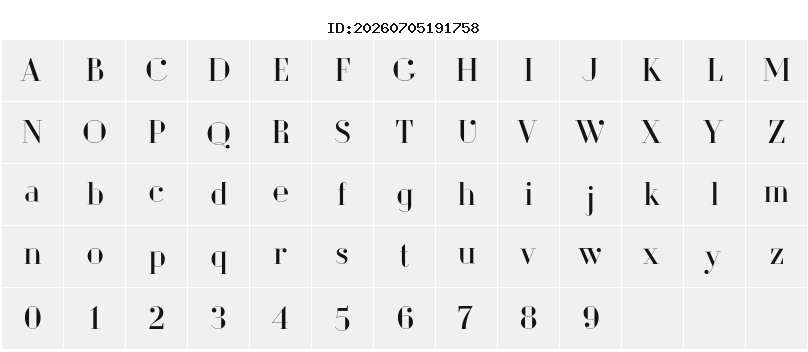
Dita Sweet Preview
• Font Name: Dita Sweet
• Designer: Ksenia Semirova & Jovanny Lemonad
• Manufacturer: Ksenia Semirova & Jovanny Lemonad
About Dita Sweet.otf
Dita Sweet.otf is a modern, elegant sans-serif font designed for ultimate readability and visual harmony. Perfect for branding, headlines, web design, and print materials.